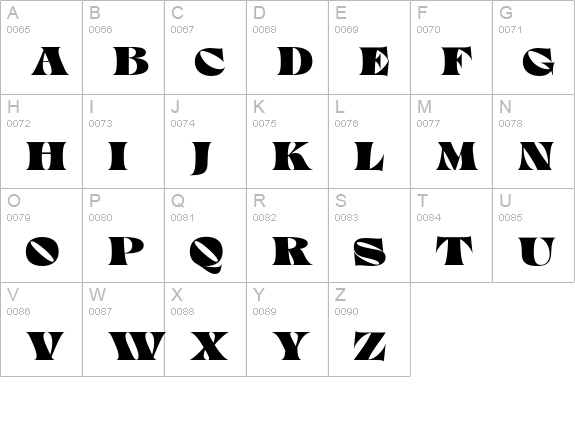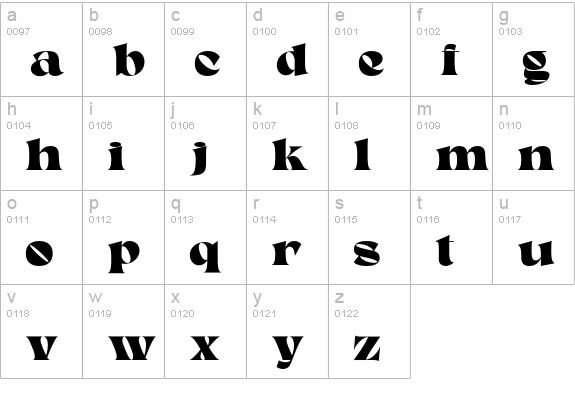
Calby is a demo font in the General > Bold category, designed by craftsupplyco. It has been downloaded 108 times and is available for Windows, Mac and Linux.
Introducing Calby font - a sleek and modern typeface that brings a touch of sophistication to your design projects. With its clean lines and elegant curves, Calby is perfect for a wide range of applications, from branding to editorial design. This versatile font exudes a sense of timelessness and refinement, making it a great choice for both digital and print media.